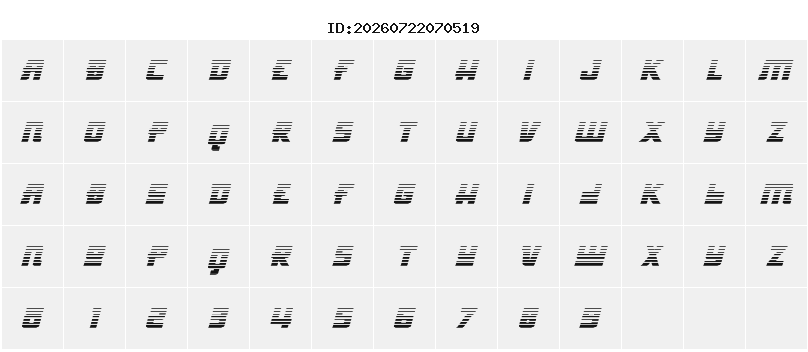
Hong Kong Hustle Gradient Italic Preview
• Font Name: Hong Kong Hustle Gradient Italic
• Full Font Name: Hong Kong Hustle Gradient Italic
About Hong Kong Hustle Gradient Italic.ttf
Hong Kong Hustle Gradient Italic.ttf is a modern, elegant sans-serif font designed for ultimate readability and visual harmony. Perfect for branding, headlines, web design, and print materials.